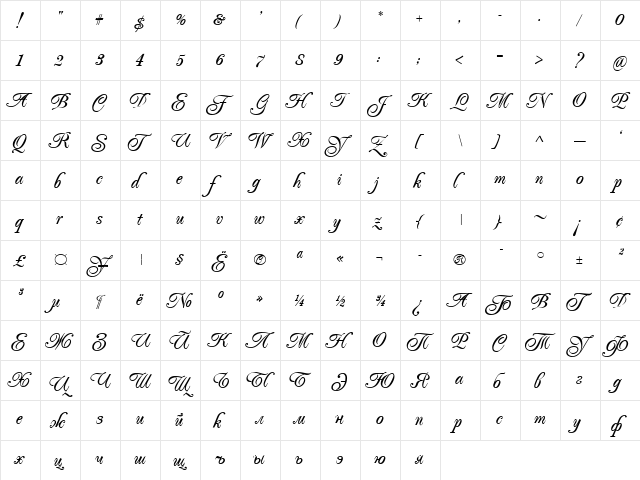
PopularScript Regular Font Preview
PopularScript Regular
PopularScript Regular Font Details
Design Context for PopularScript Typeface
PopularScript brings a calligraphic fluidity to the page — its connecting strokes and expressive curves give it an unmistakably human quality.